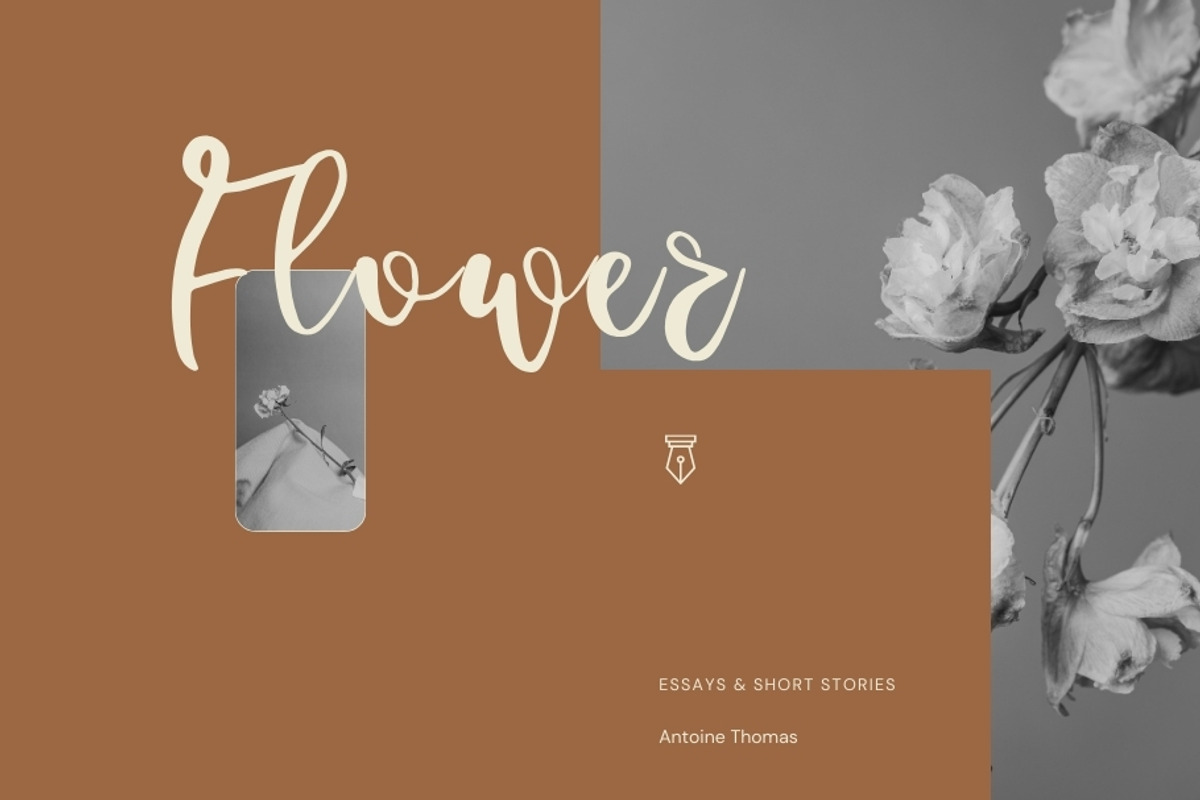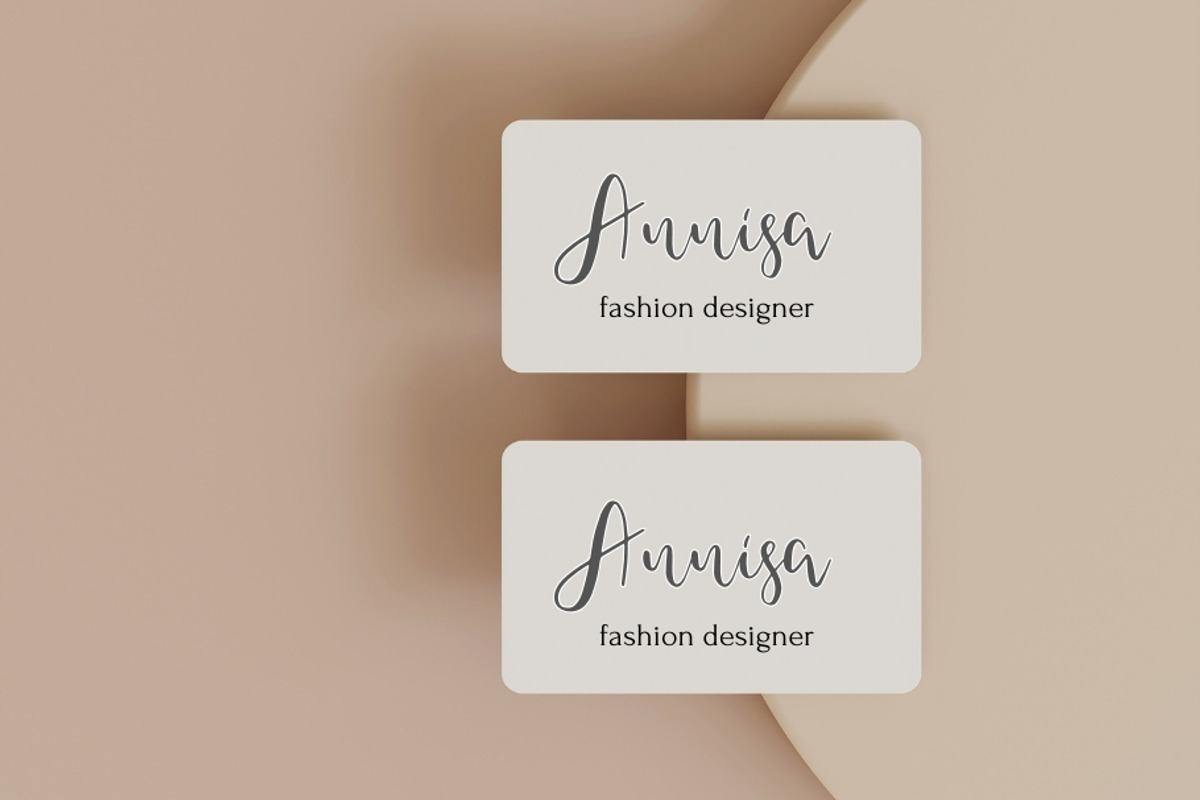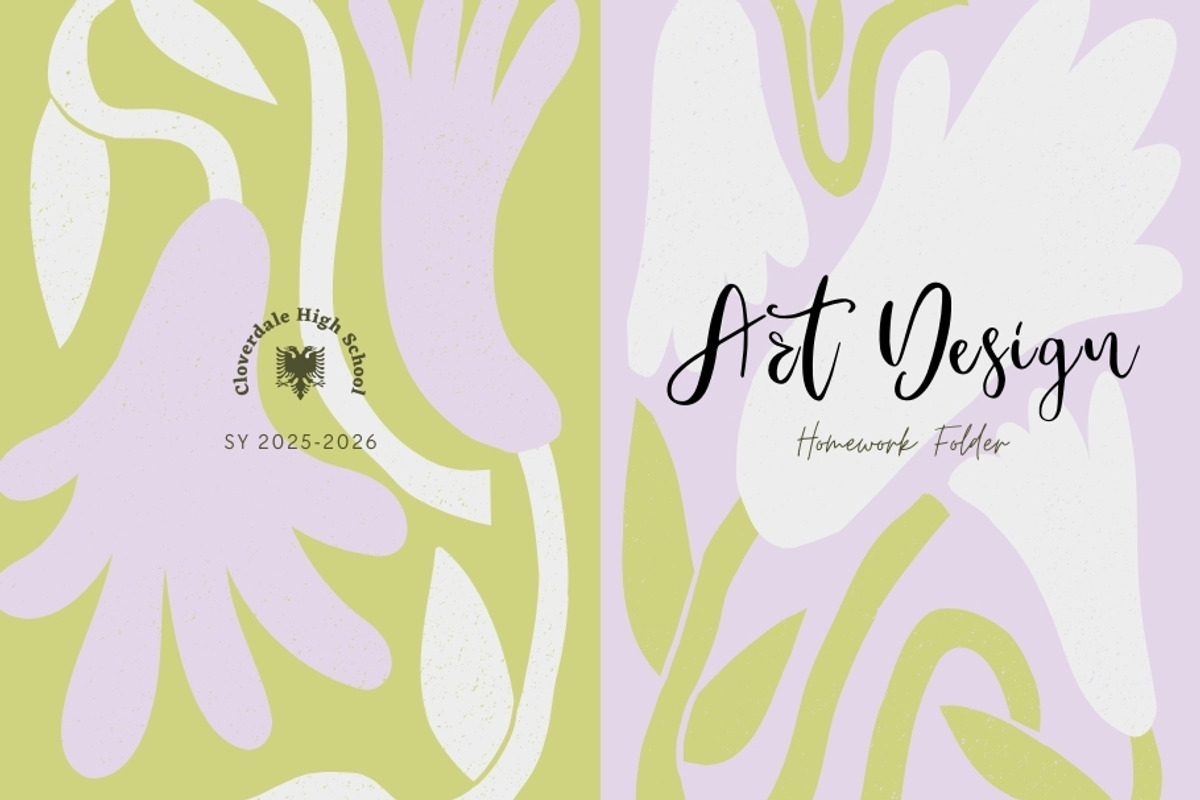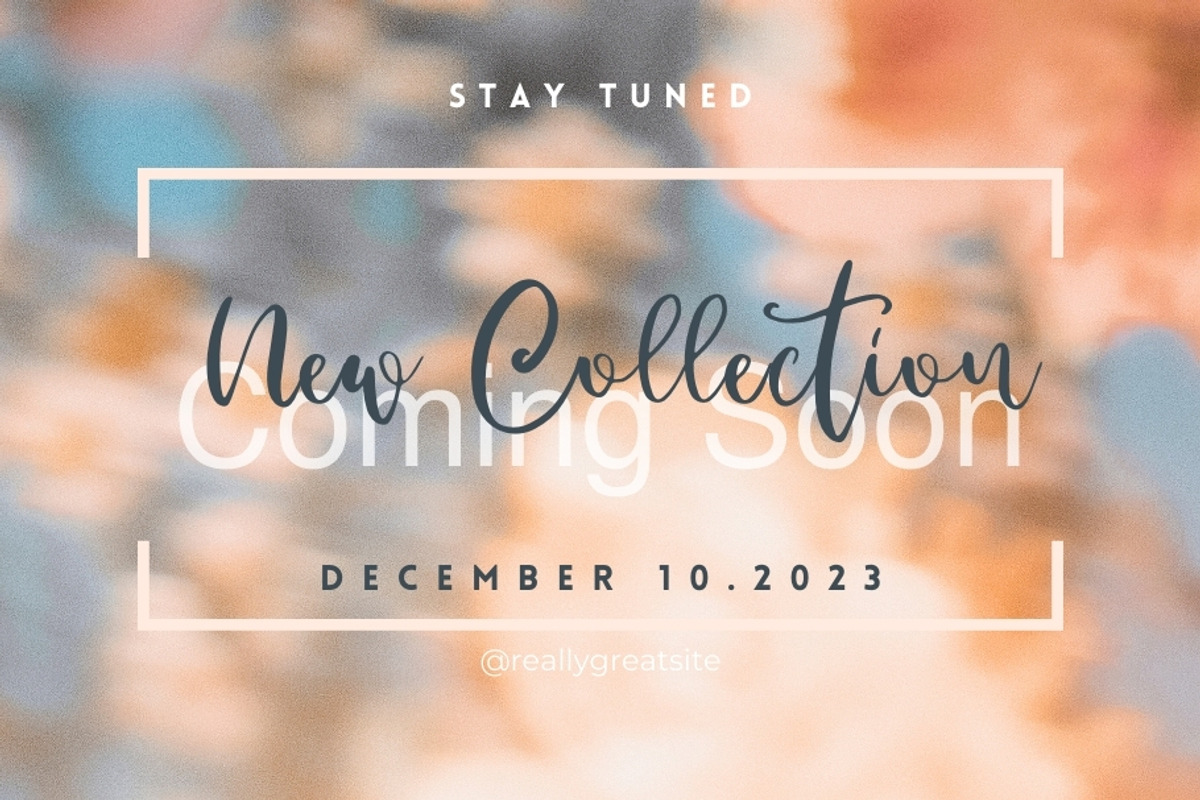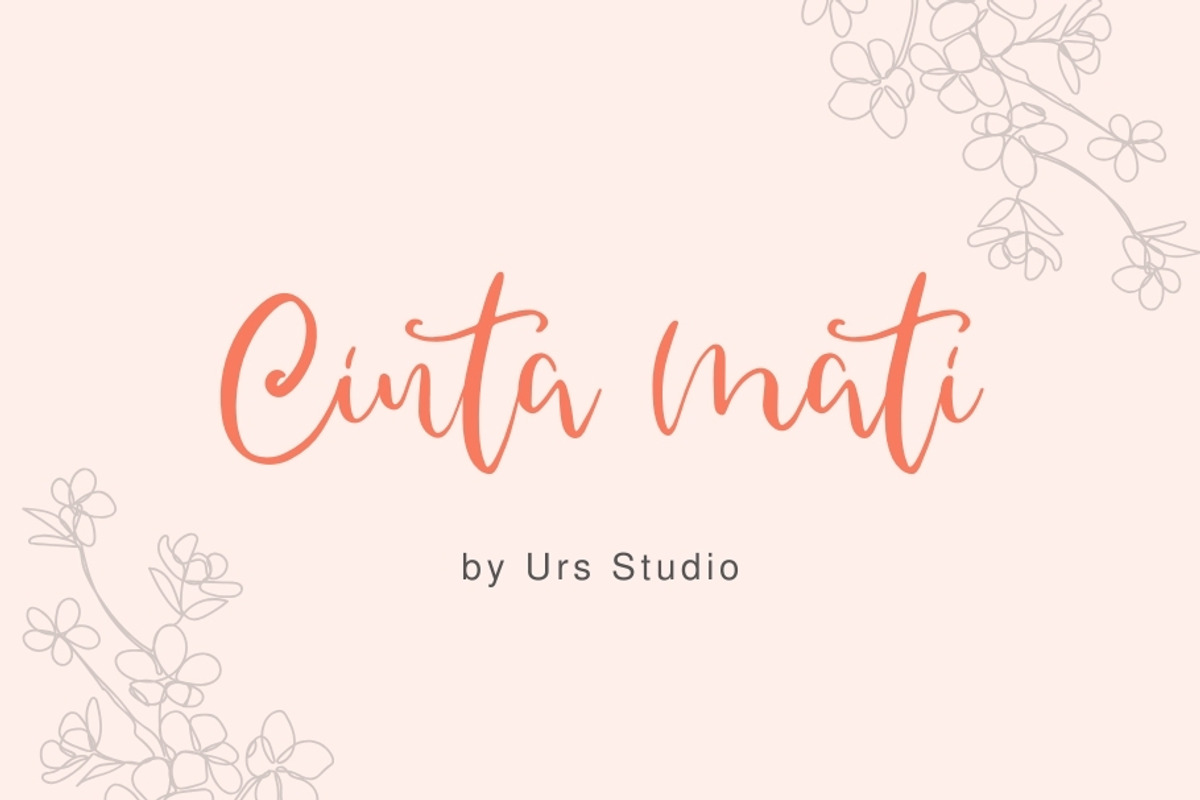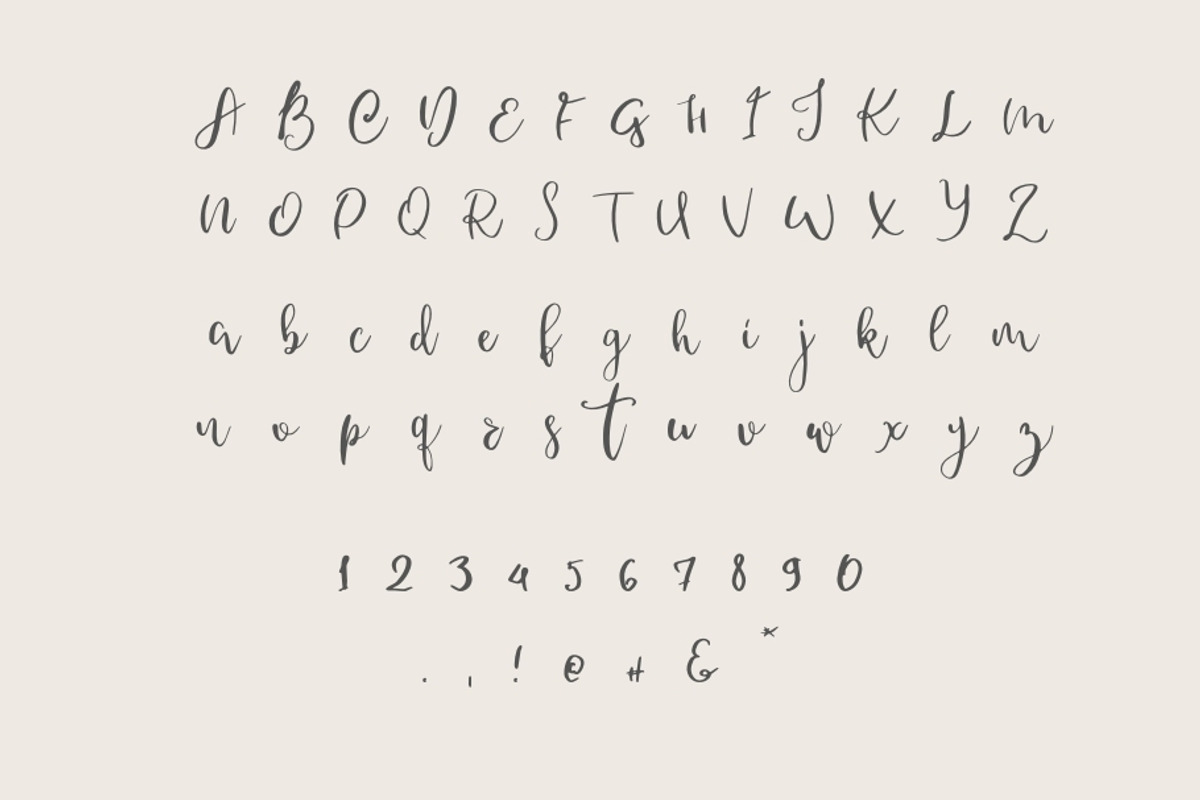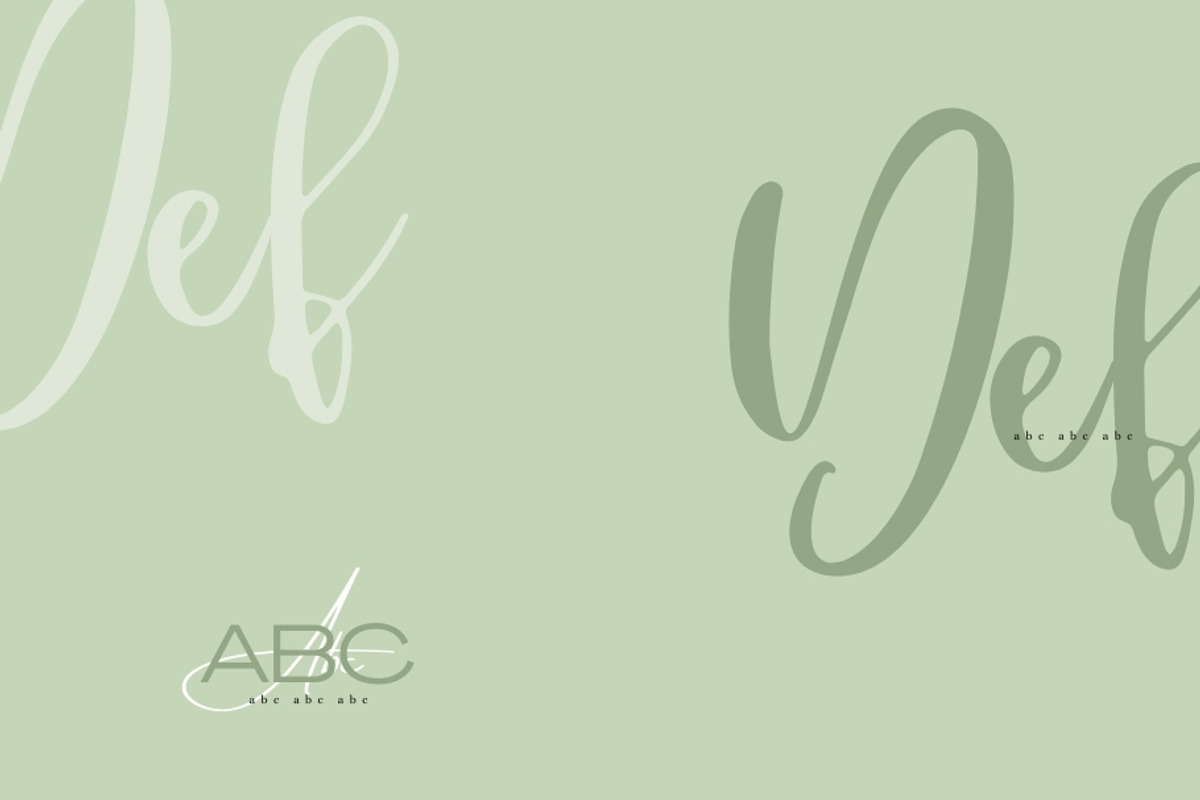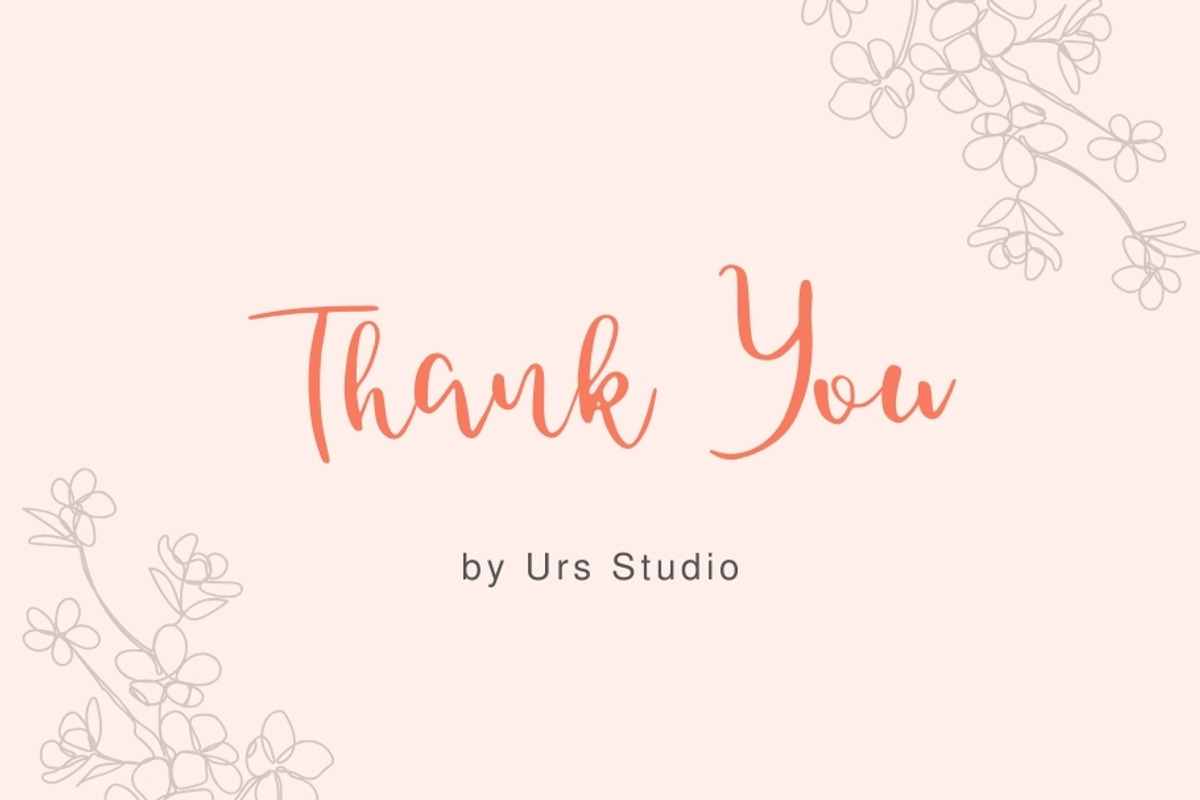
Cinta Mati Handwritting Font
Introducing Cinta Mati Handwritting Font
This Font can be used for any variety of purposes, such as: Signature, Photography, Wedding Ceremony, Invitation, Packaging, Logo Type, Branding Design, Fashion and also can be used for Business purpose.
This Font Template contains Modern, Elegant, Creative, Professional and Unique Concept.